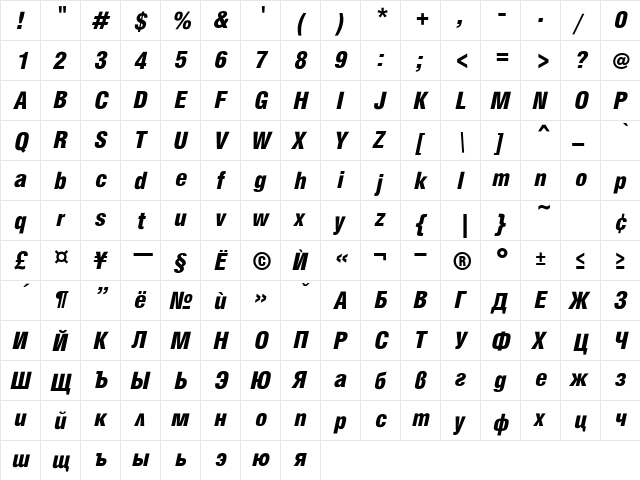
HebarCondBlack Italic
Design Context for HebarCondBlack Typeface
HebarCondBlack offers clean, dependable letterforms without strong stylistic allegiance, making it a practical choice for designers who need flexibility. The dynamic lean of this cut emphasises speed and emphasis in any layout. Its narrow stance lets it pack a punch even in space-constrained designs.